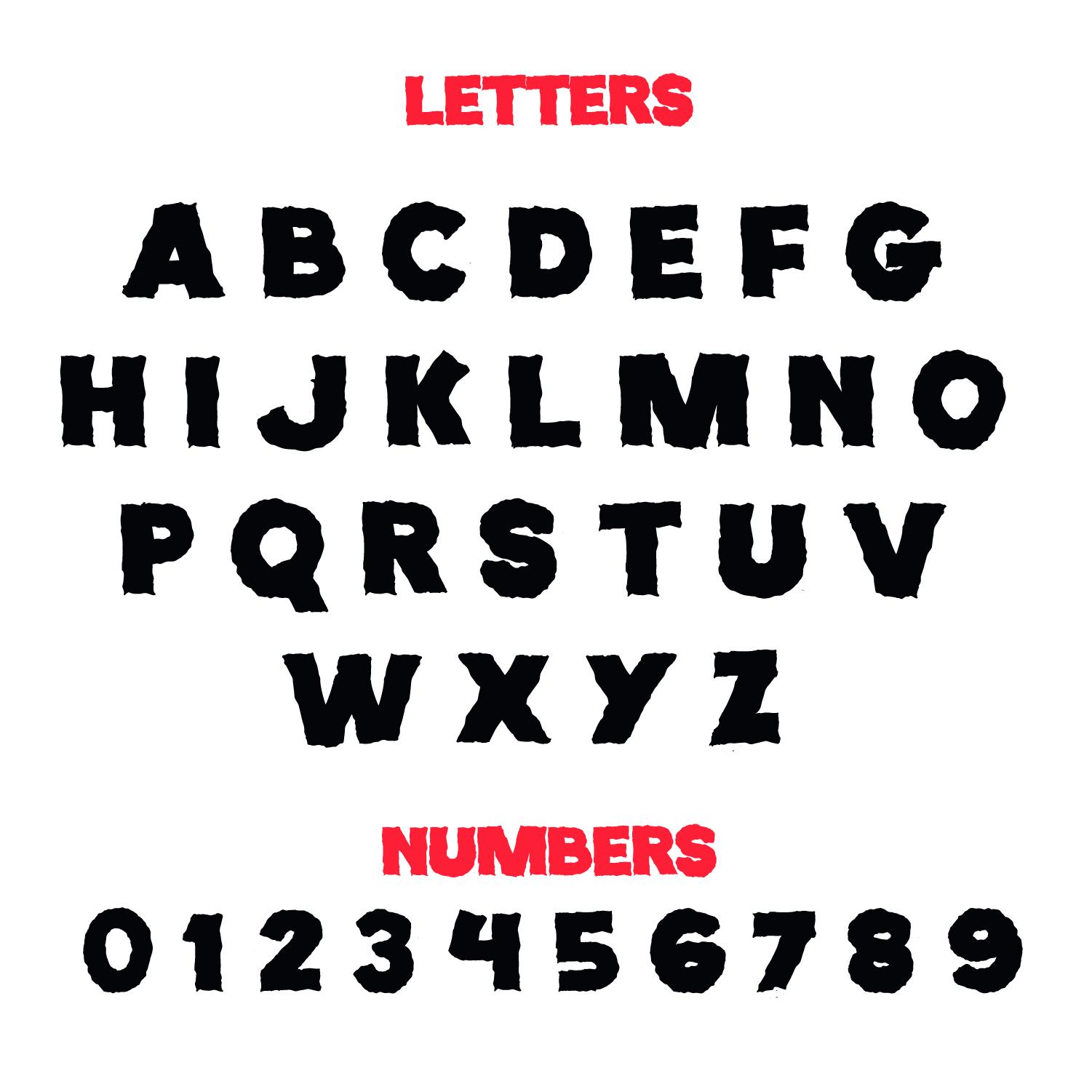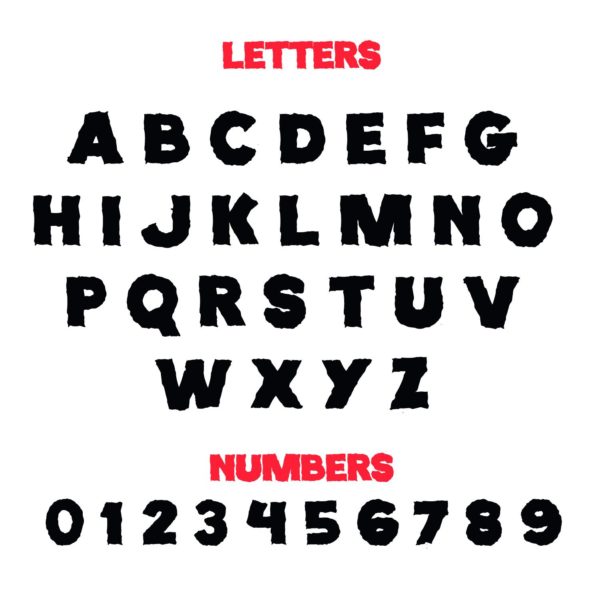
Looking for the perfect font to add a sinister and spooky vibe to your designs? Look no further than Evil Ted, your favorite chunky sans serif fonts evil twin. Evil Ted is as large and impactful as it gets, making it ideal for short headlines in horror-inspired projects. Drawing inspiration from 1980s independent horror posters, this typeface is menacing as a deadite in your bed.